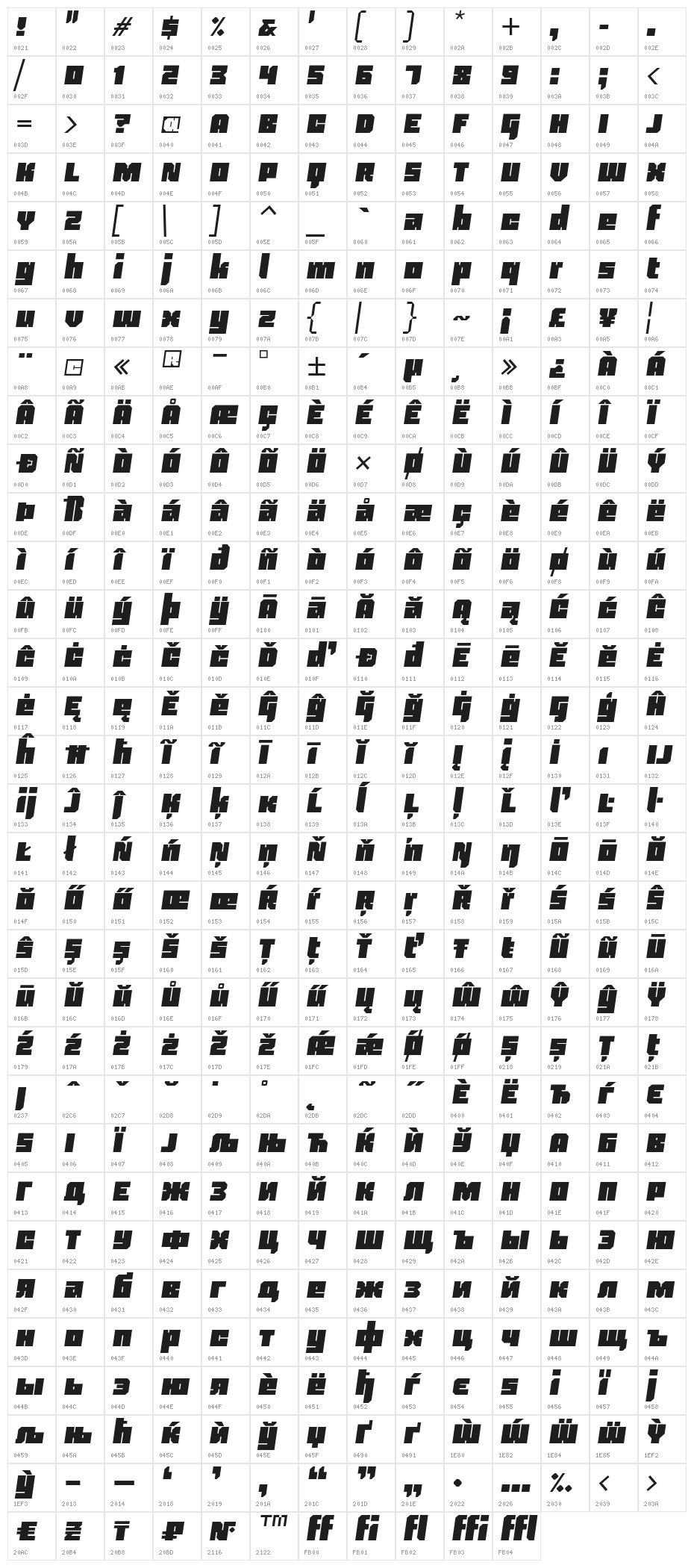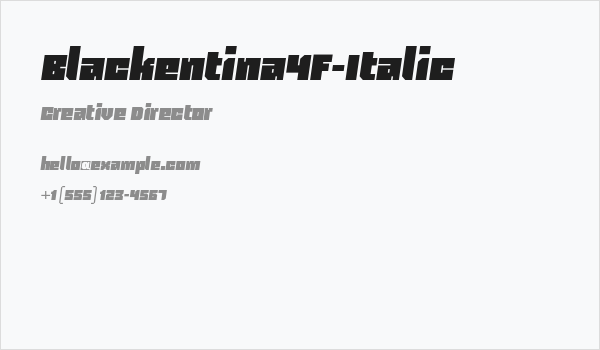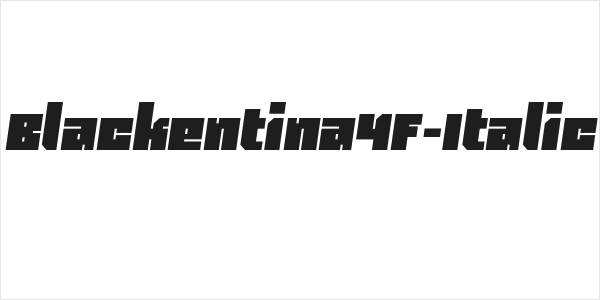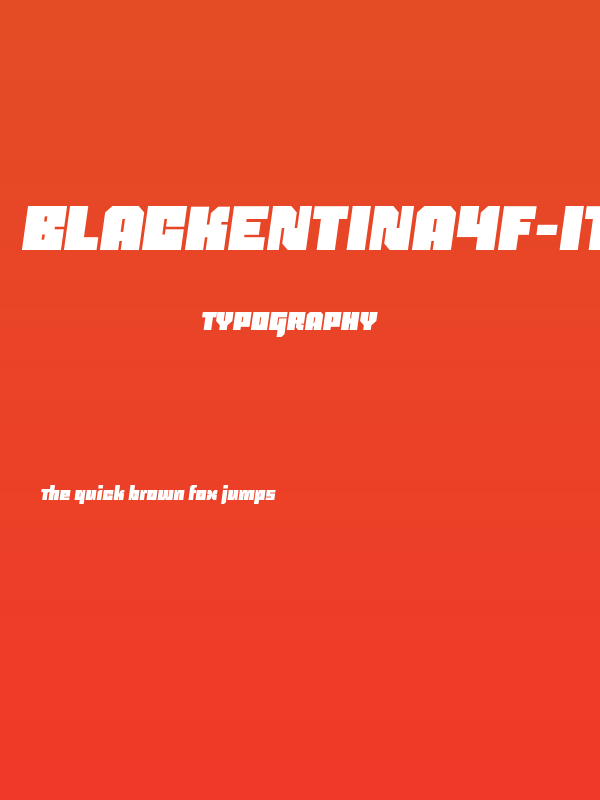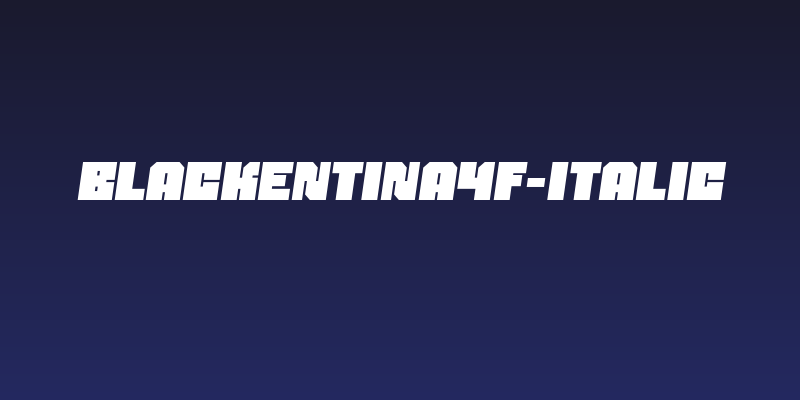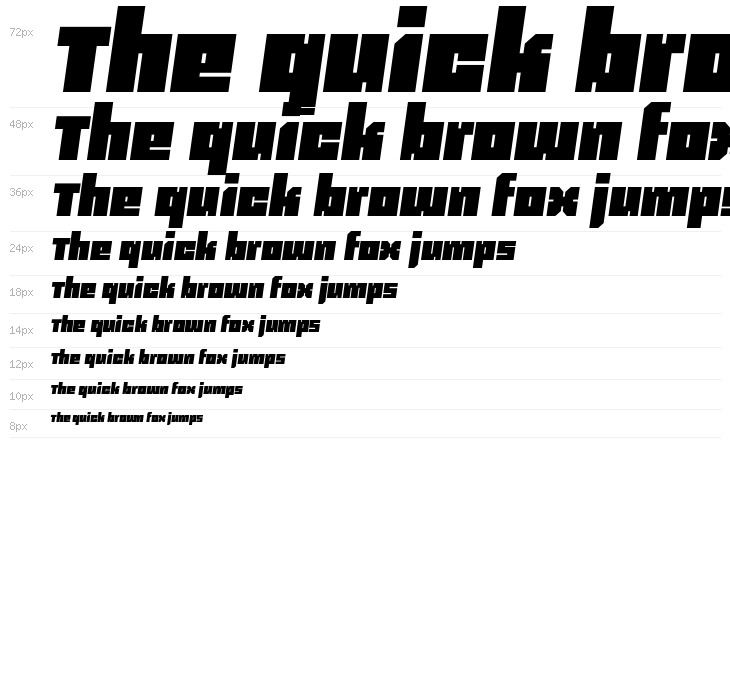
Blackentina4F-Italic Font
Blackentina4F-Italic Description
This font features a bold and angular design with a strong geometric influence. The characters are sharply defined with a distinct slant, giving them a dynamic and forward-moving appearance. The uppercase letters are particularly striking, with a blocky, robust form that commands attention. Lowercase letters maintain the same angular style, ensuring consistency across the typeface. Numbers and special characters follow the same bold and angular aesthetic, making them easily recognizable and visually impactful. The overall design is modern and assertive, suitable for projects that require a strong visual presence.
| Proposed Projects | Ideal for branding, posters, headlines, and any design requiring a bold, modern look. |